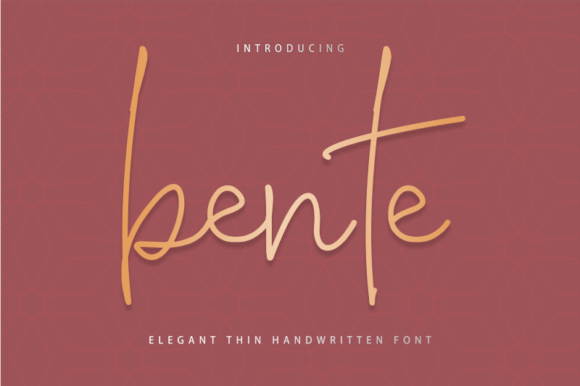
Bente Font: Unleashing Modern Elegance in Typography
In the realm of typography, few fonts manage to capture the essence of modern elegance while exuding a bold vibe. Bente Font is one such typographic marvel that has been making waves in the design community. This incredibly unique and stunning script is not just a font; it’s an experience that blends contemporary flair with timeless sophistication. In this article, we’ll dive deep into the world of Bente Font, exploring its characteristics, the inspiration behind its creation, and how designers and crafters can leverage its beauty in their projects.
The Genesis of Bente Font
The story of Bente Font begins with a vision to create a typeface that stands out in the digital age. With the proliferation of digital content, the demand for fonts that are both visually striking and legible has never been higher. Bente Font was crafted with this need in mind, aiming to provide designers with a tool that could add a touch of elegance and boldness to their creations. Whether it’s for branding, advertising, packaging, or digital media, Bente Font was designed to leave a lasting impression.
Characteristics of Bente Font
Bente Font is characterized by its fluid strokes, elegant ligatures, and a bold presence that commands attention. Its script style is reminiscent of traditional calligraphy but with a modern twist that makes it highly versatile. The font features:
- Unique Letterforms: Each letter in Bente Font is carefully crafted to ensure that the font stands out in any context.
- Elegant Ligatures: The font includes beautiful ligatures that add a touch of sophistication to any text.
- Bold Vibe: Bente Font’s boldness makes it perfect for headlines, titles, and any design that requires a statement piece.
- Modern Elegance: Despite its boldness, the font maintains an air of elegance, making it suitable for a wide range of design projects.
Inspiration and Creative Uses
The inspiration behind Bente Font is to evoke a sense of modern luxury and sophistication. Designers can use Bente Font in a variety of creative ways:
- Branding and Logotypes: Bente Font’s unique and bold style makes it an excellent choice for logos and brand identities that aim to stand out.
- Wedding and Event Invitations: The font’s elegant and sophisticated vibe is perfect for wedding invitations, event posters, and other ceremonial designs.
- Packaging Design: Bente Font can add a touch of luxury to product packaging, making it ideal for high-end brands.
- Digital Media: For websites, social media graphics, and digital advertisements, Bente Font can help create visually compelling content.
Tips for Using Bente Font
To make the most of Bente Font, consider the following tips:
- Pair it Wisely: Bente Font pairs well with clean sans-serif fonts for a balanced look.
- Experiment with Colors: While Bente Font looks stunning in black, experimenting with colors can reveal new dimensions of its elegance.
- Play with Sizes: Utilize the font’s boldness by varying the size of the text for a dynamic design.
Bente Font is more than just a typeface; it’s a statement of modern elegance and boldness. Its unique characteristics make it an invaluable tool for designers and crafters looking to elevate their projects. Whether you’re creating a brand identity, designing an invitation, or crafting a digital advertisement, Bente Font offers the versatility and sophistication needed to make your work stand out. Embrace the beauty of Bente Font and let its stunning script inspire your next design masterpiece.